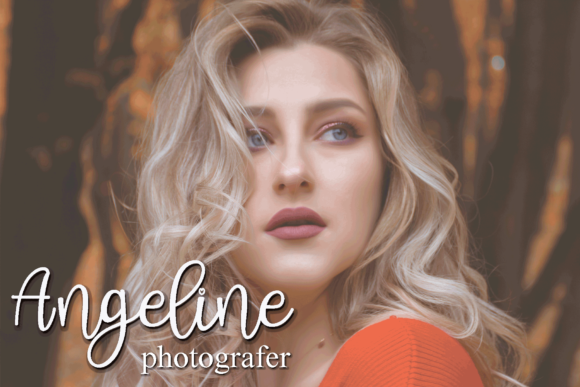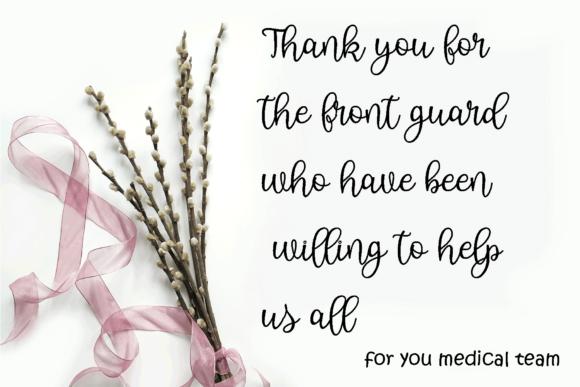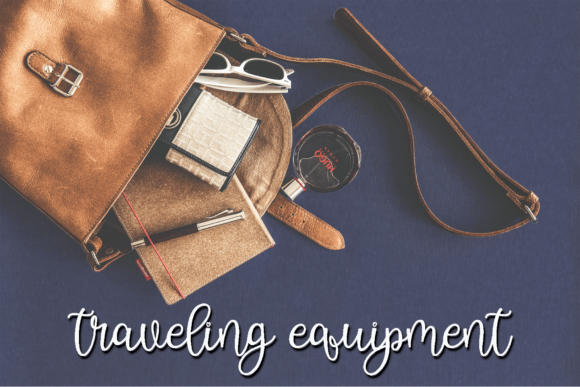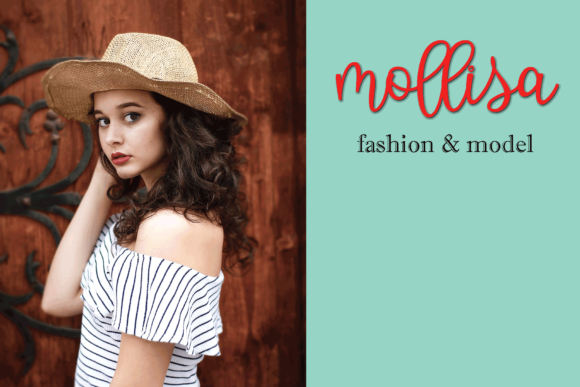
Handmade is a sweet, rounded calligraphy handwritten font, that will allow you to add a decorative touch within seconds.
This font is PUA encoded which means you can access all of the glyphs and swashes with ease! It also features a wealth of special features including alternate glyphs and ligatures. Use it for a wide range of design projects, and make your text stand out with Handmade!